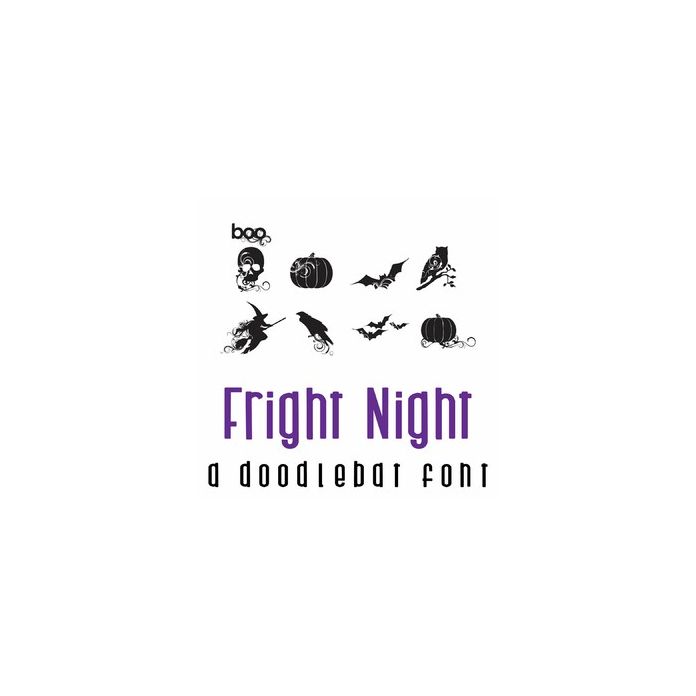
This beautiful doodlebat font features 26 spooky images full of flourishes and perfect for Halloween. Perfect for cards, crafts, gifts, decor, scrap book pages, planner stickers and more!